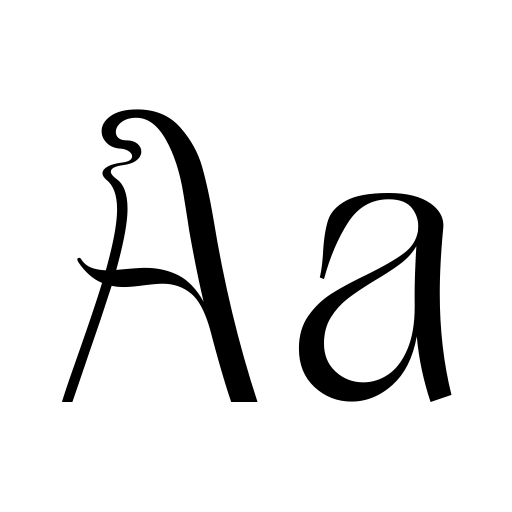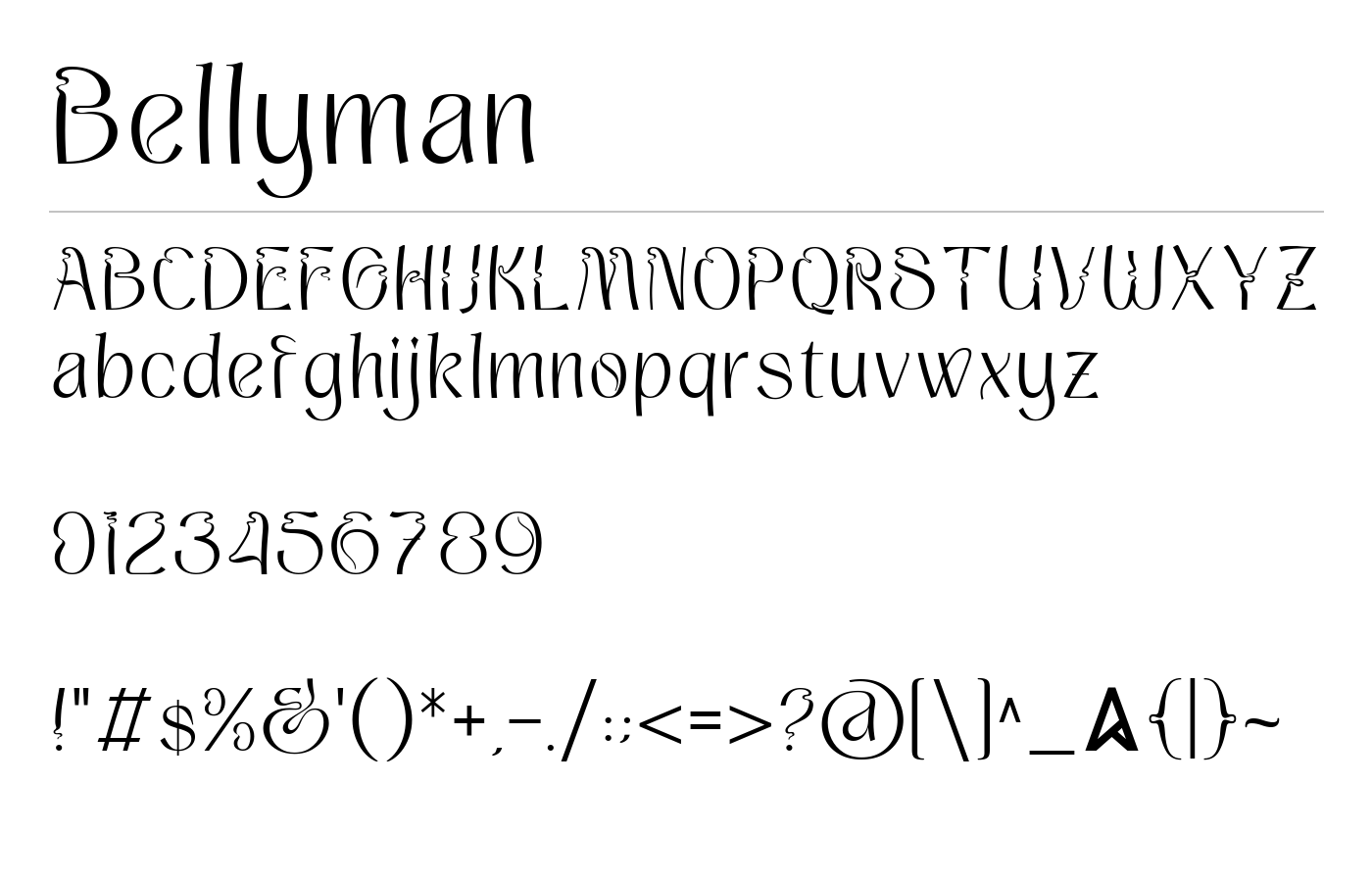
Bellyman is a unique serif font with a whimsical and slightly quirky character, featuring delicate, narrow letterforms and moderate contrast between thick and thin strokes. Its thin, unbracketed serifs and playful curves give it a modern yet handcrafted feel, making it ideal for creative branding, editorial projects, and invitations where a touch of elegance combined with personality is desired. This font works best in display sizes, adding charm and distinctiveness to headlines and logos.
Bellyman Font
About Bellyman Font